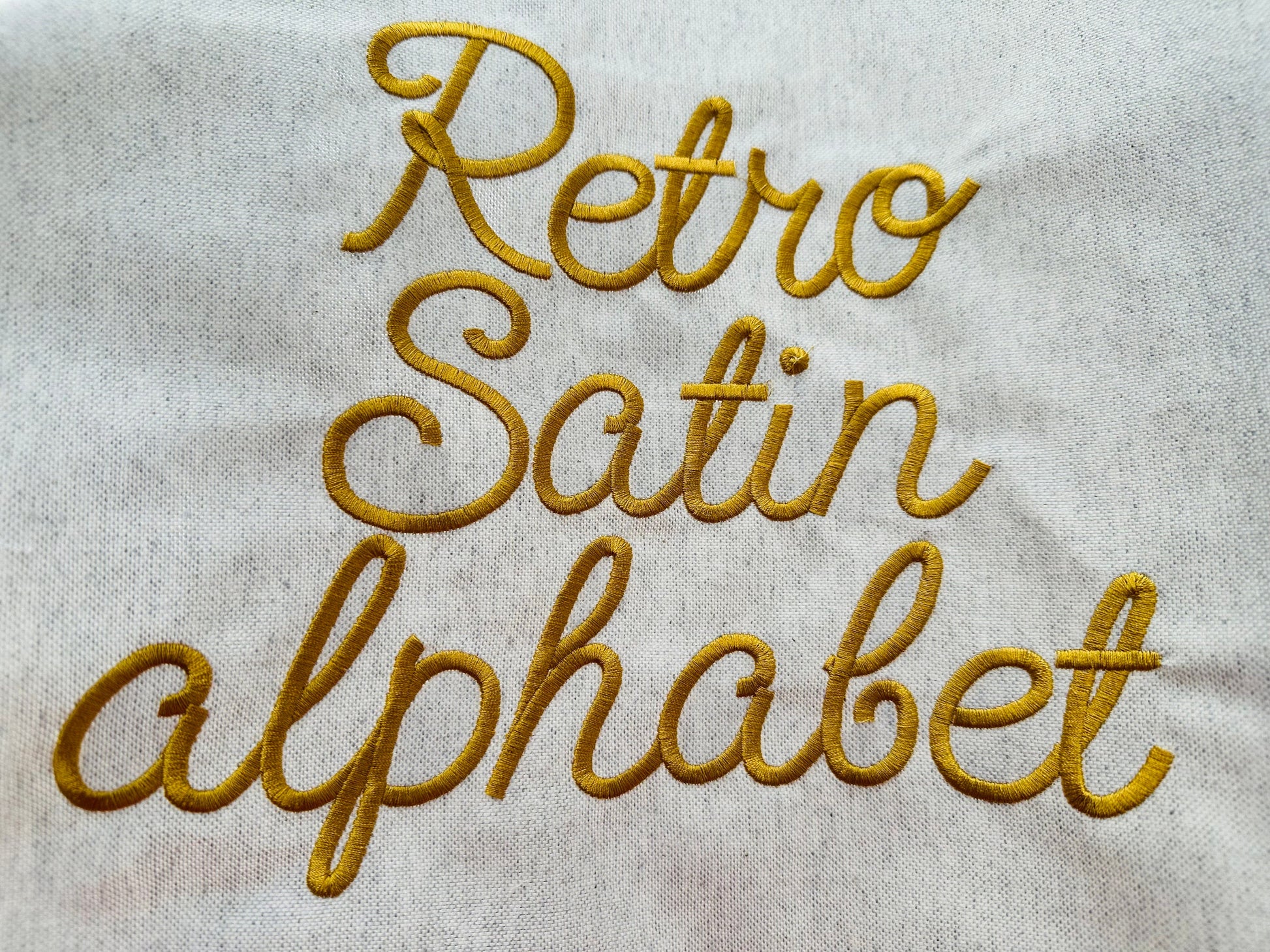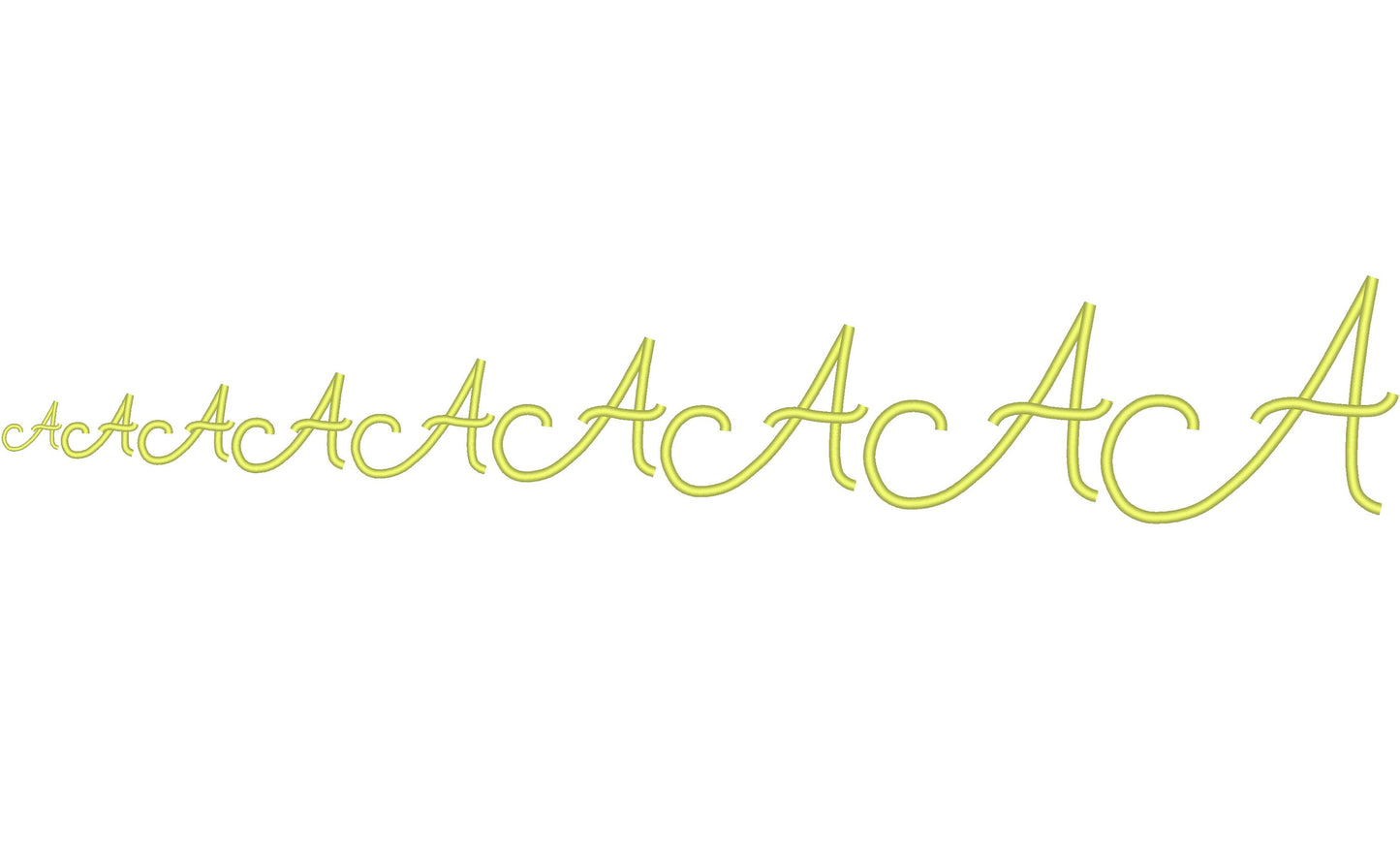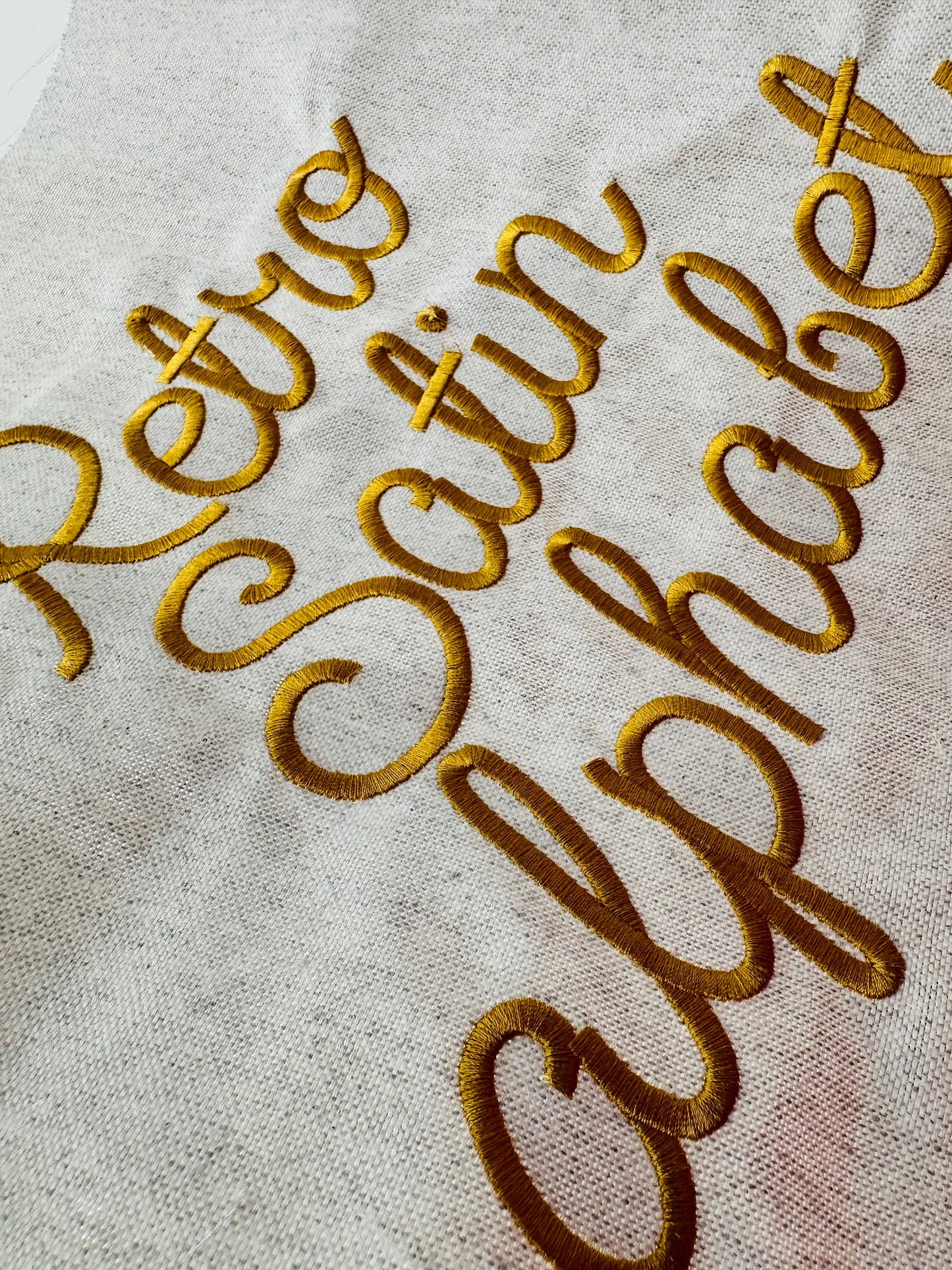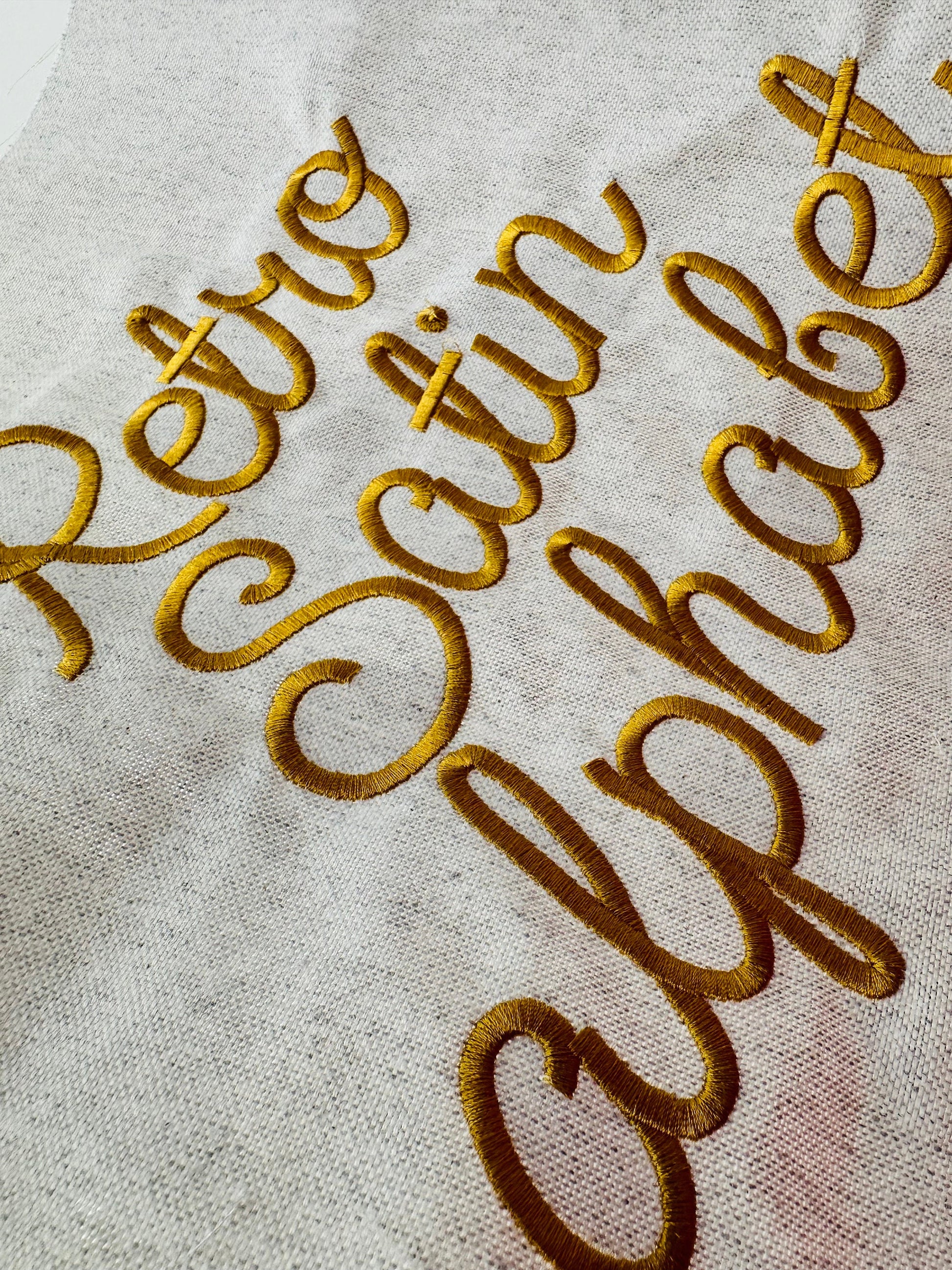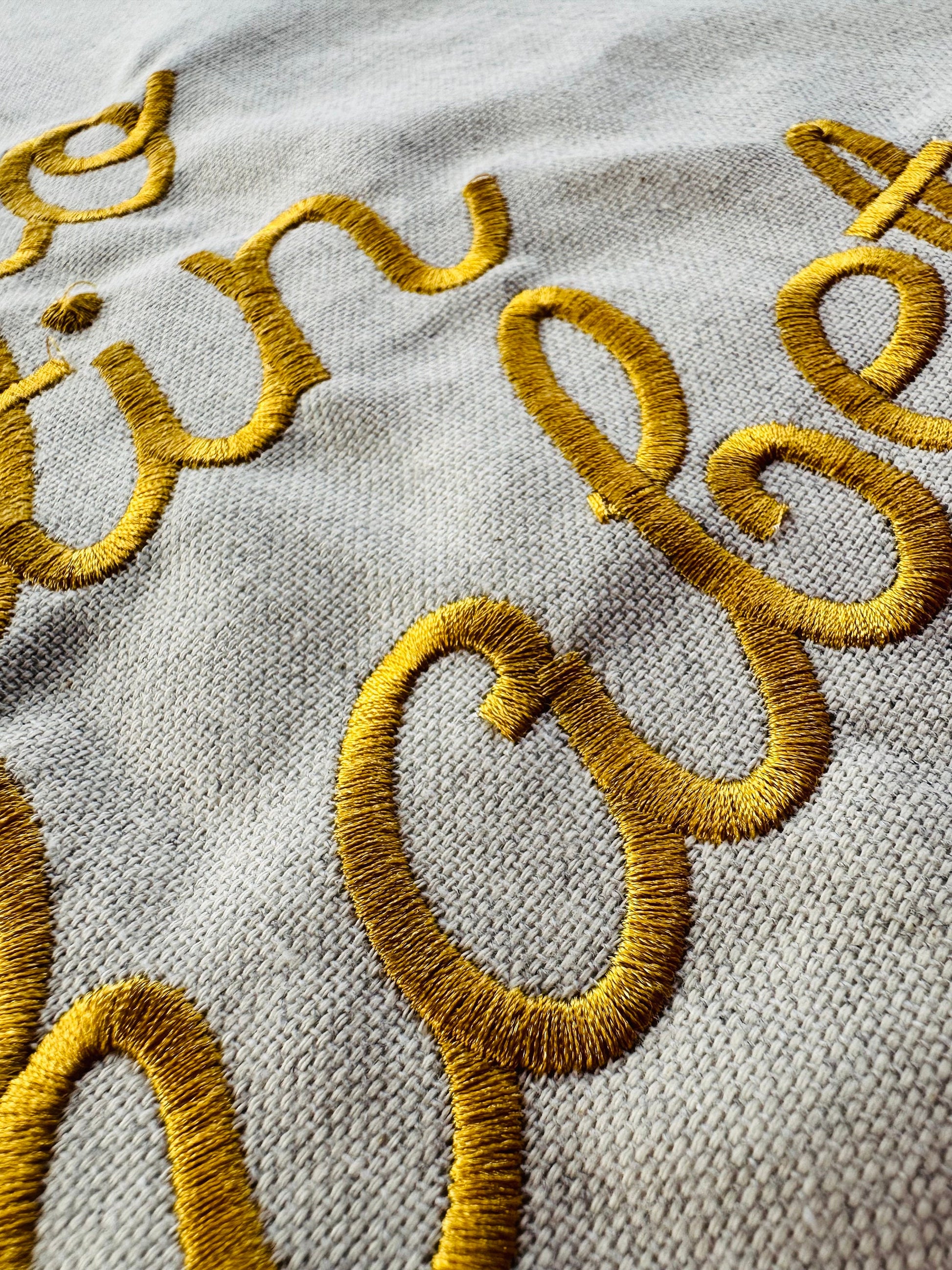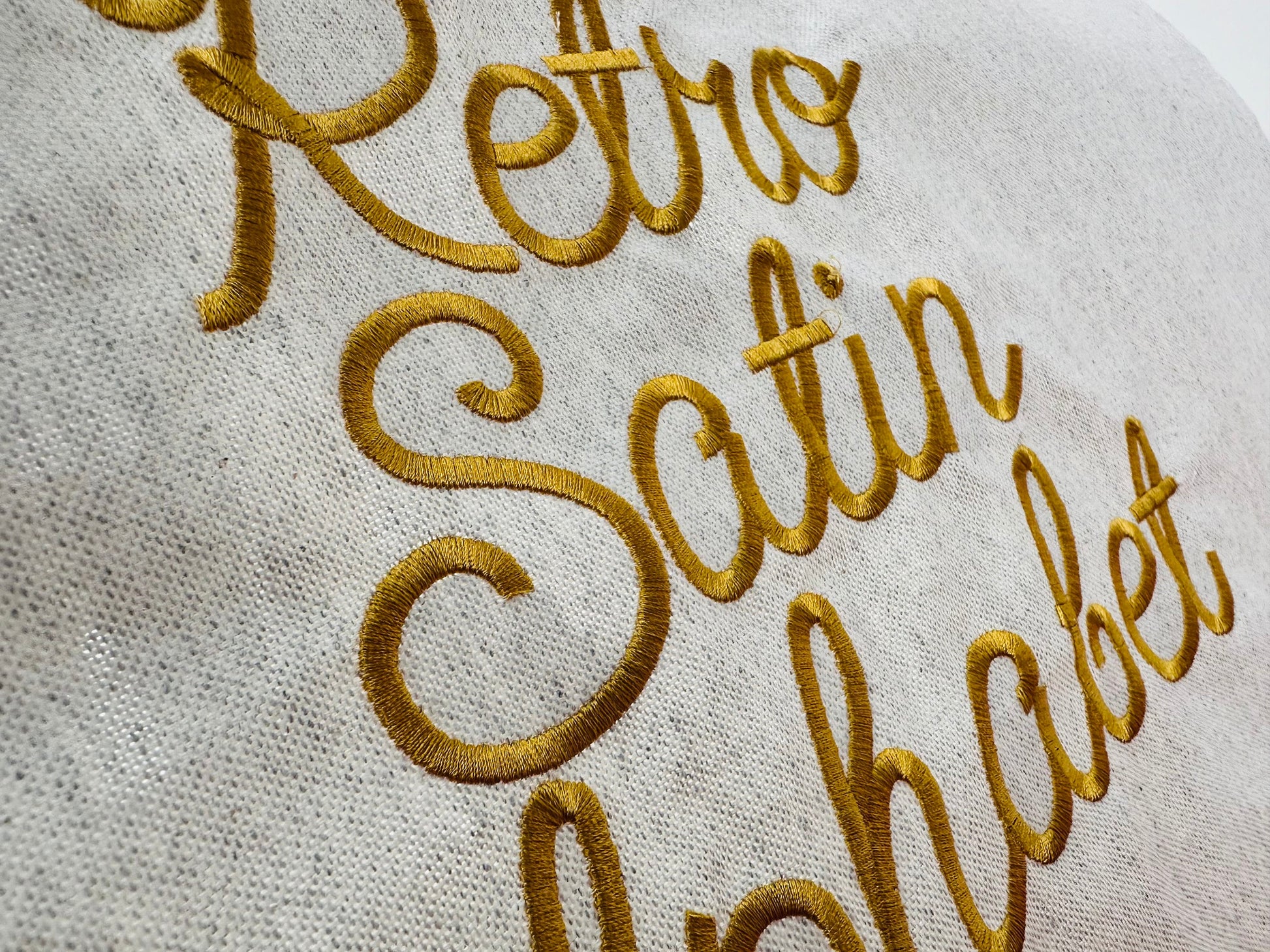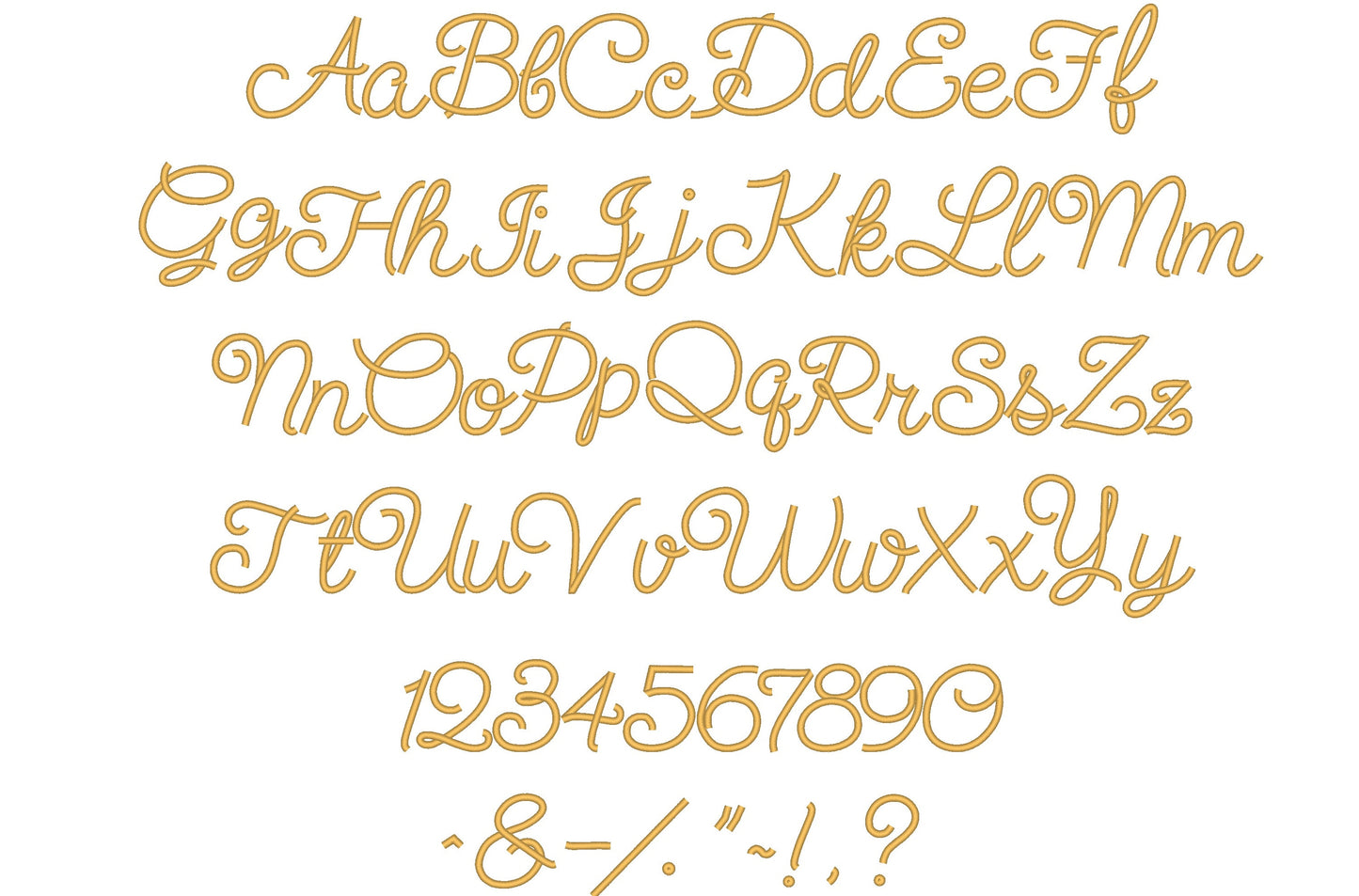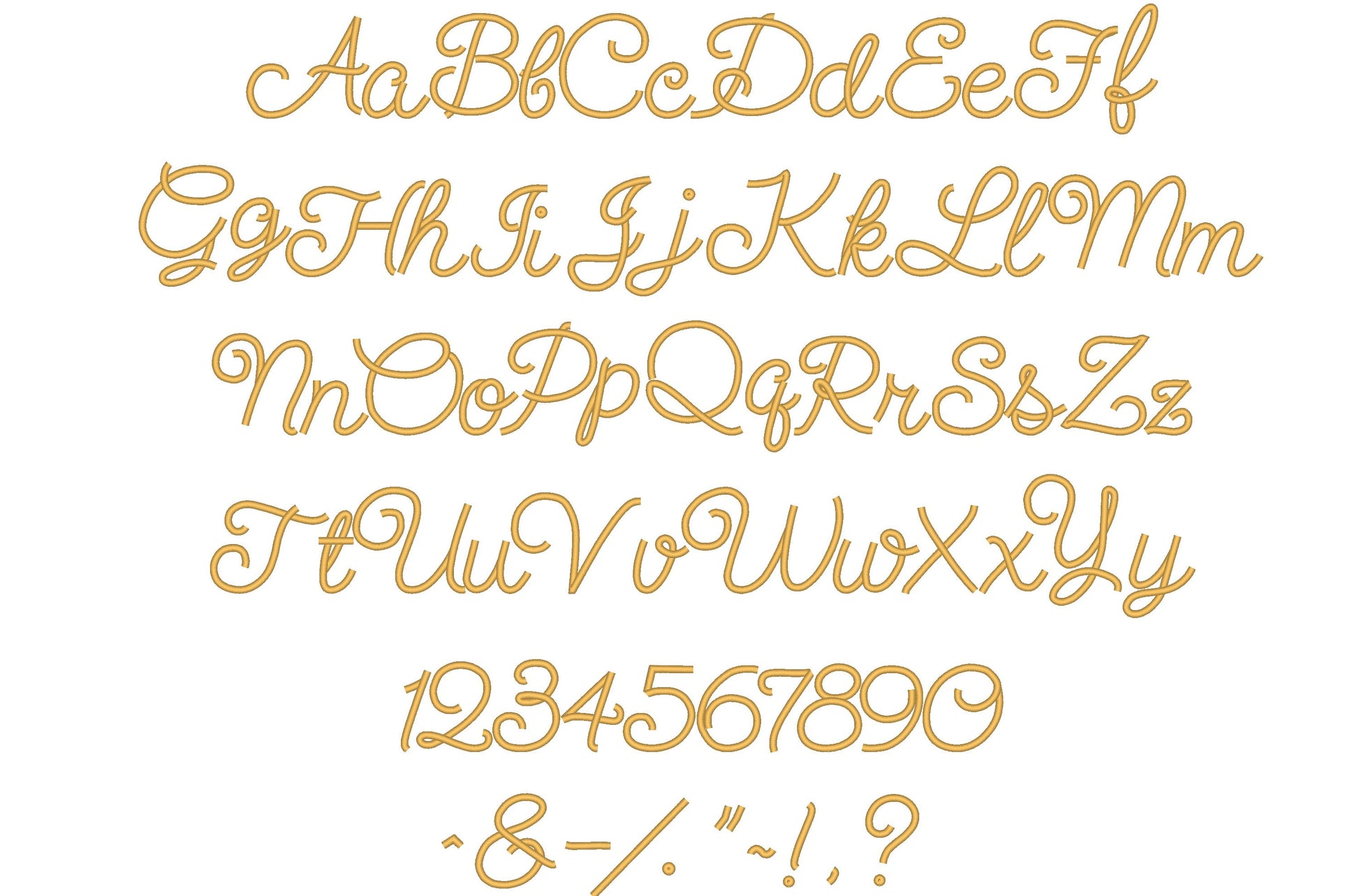
Or click to open the linkA soft handwritten satin stitch script for babies and kids. Sweet for baby names, bibs, blankets and monograms.
Uppercase and lowercase letters, numbers 0 to 9 and punctuation. Nine sizes: 0.9, 1.2, 1.5, 1.8, 2.5, 2.7, 3.5, 3.8 and 4.5 inches. Smooth, shiny satin stitching.